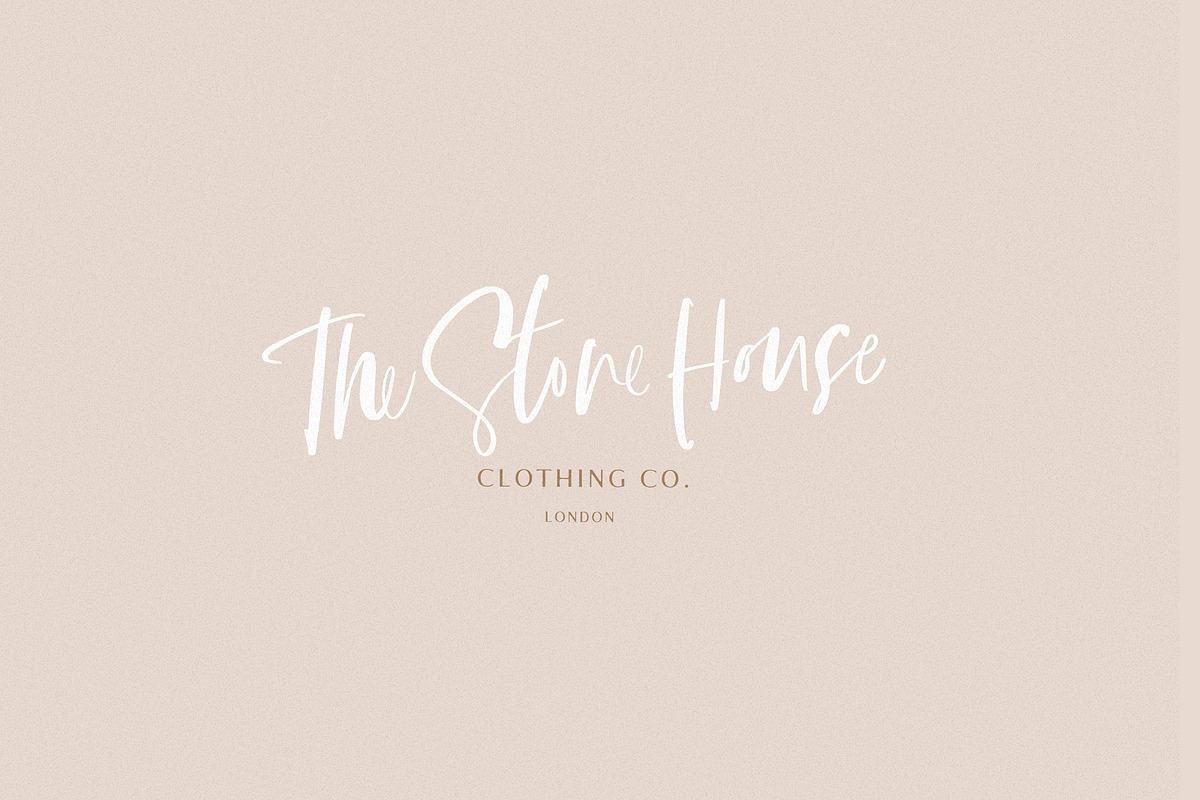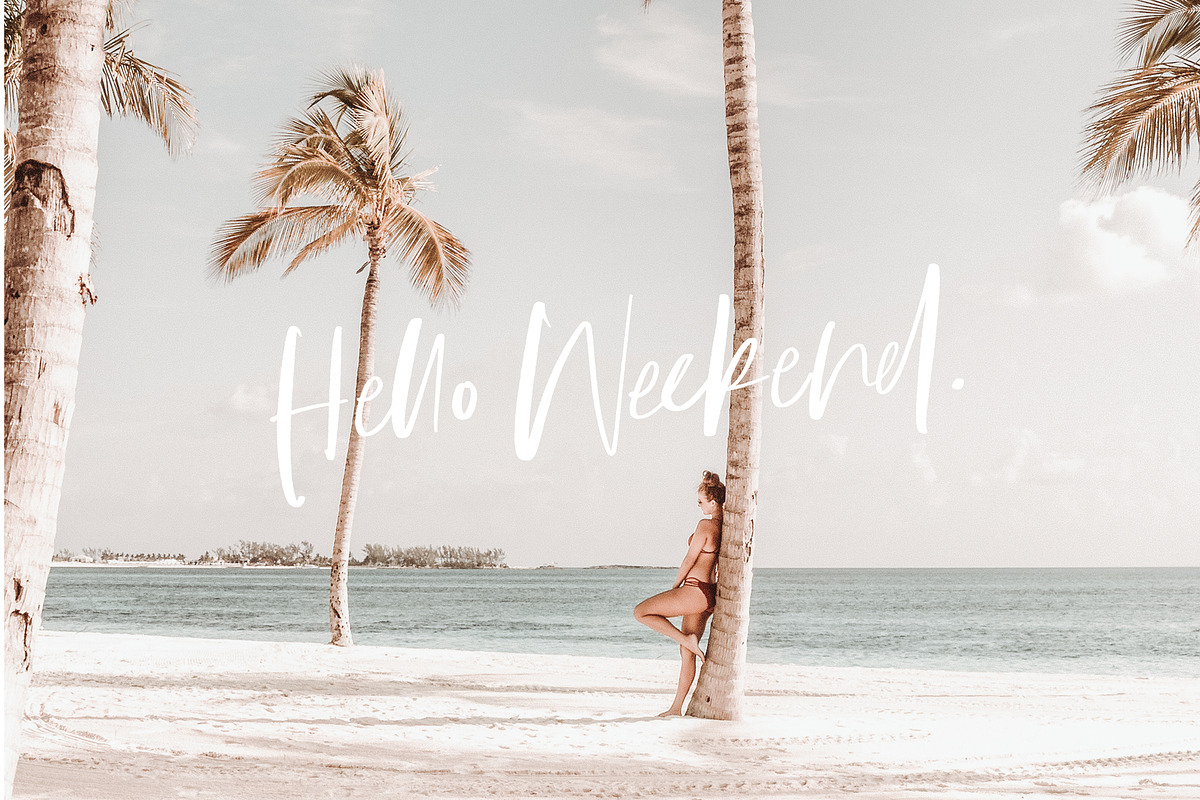
Picasso in Paradise Font
Picasso in Paradise is a fresh and avant-garde script font with a carefree attitude and a playful edge. Perfect for adding a quirky but casual feel, Picasso in Paradise comes with a large selection of natural-looking ligatures, that form automatically as you type when you have your OpenType features active.
It can be used for a variety of projects such as branding, photography, invitations, stationery, wedding designs, social media posts, advertising, product packaging, product design and other romantic projects.